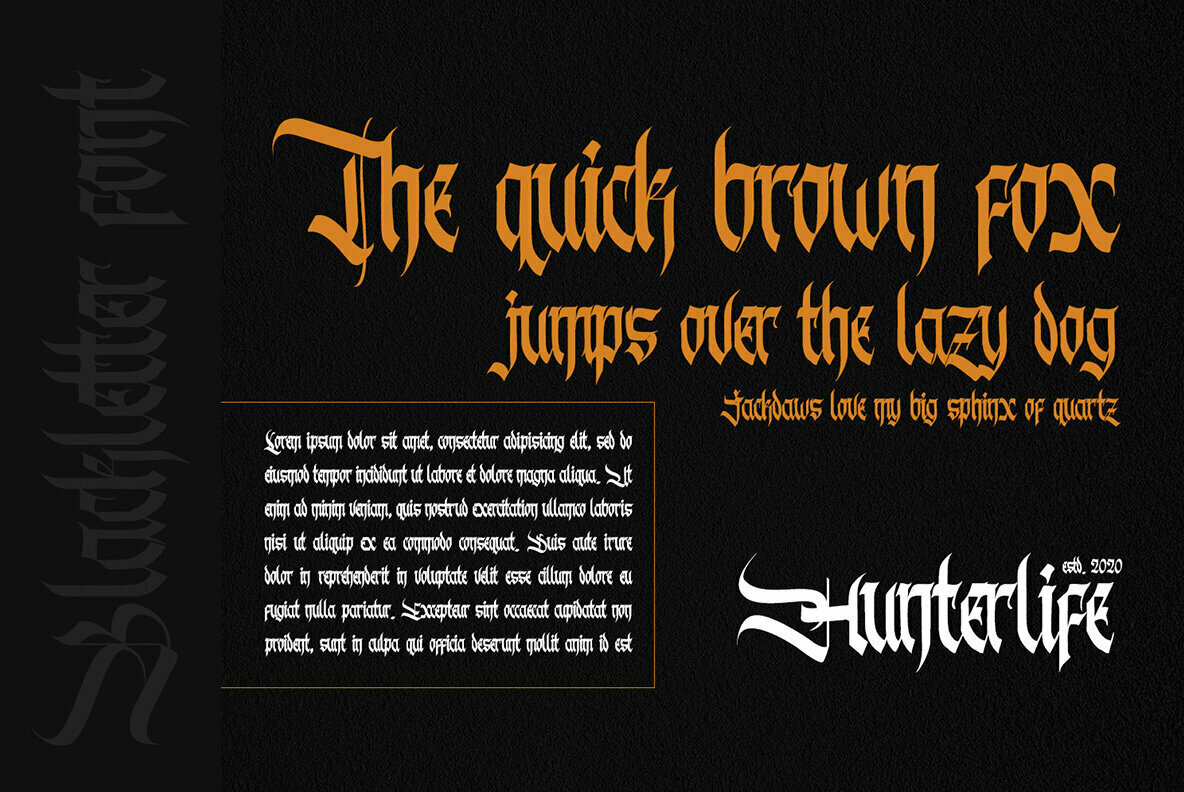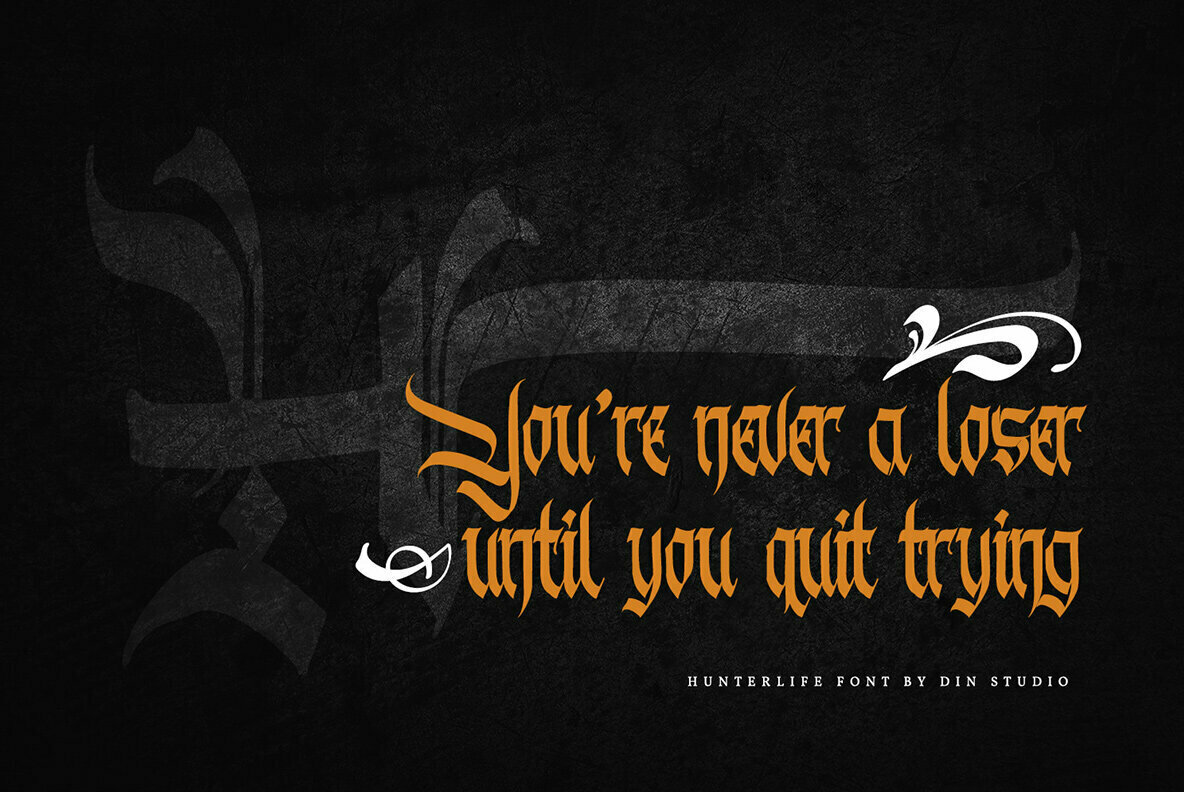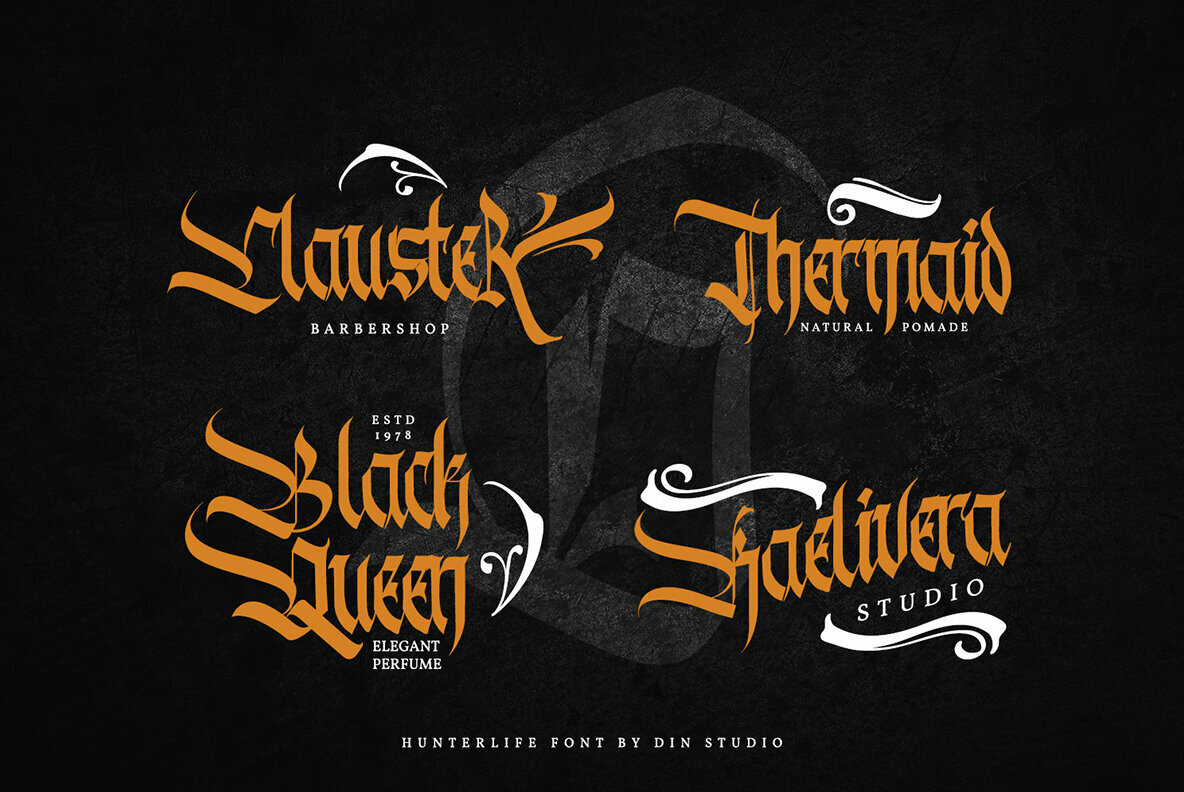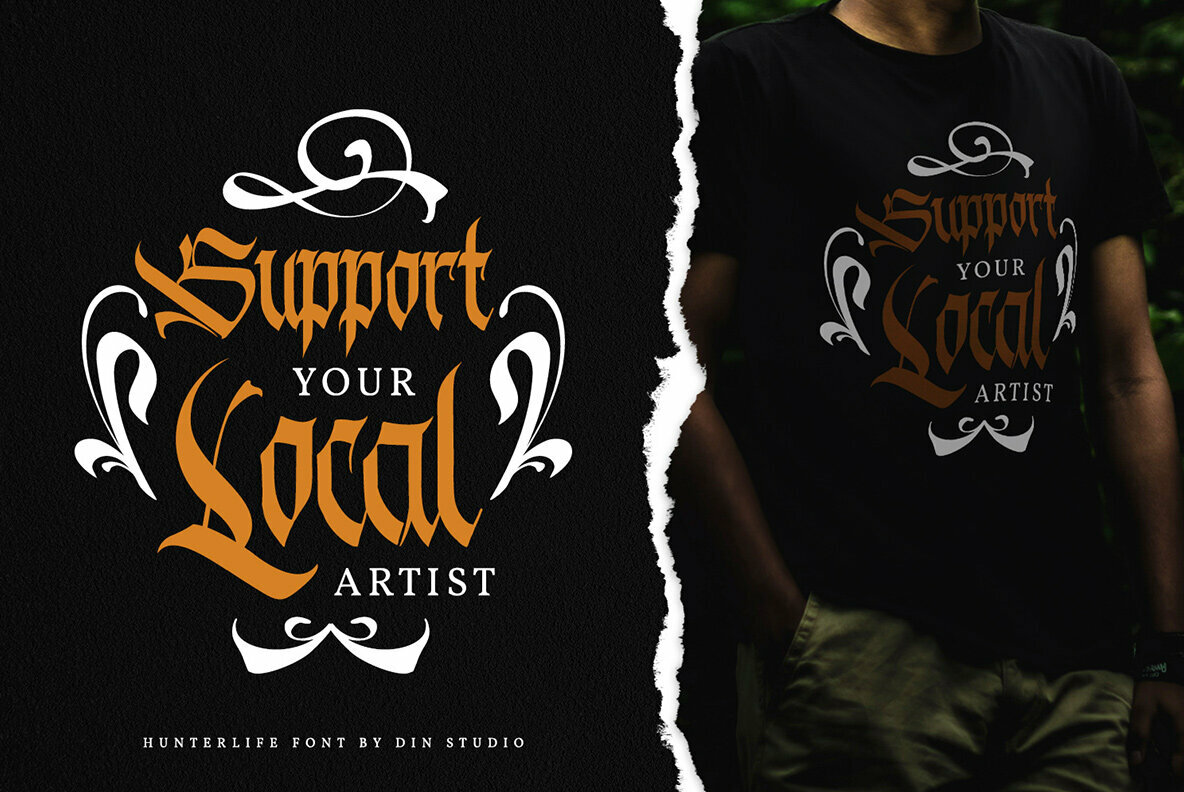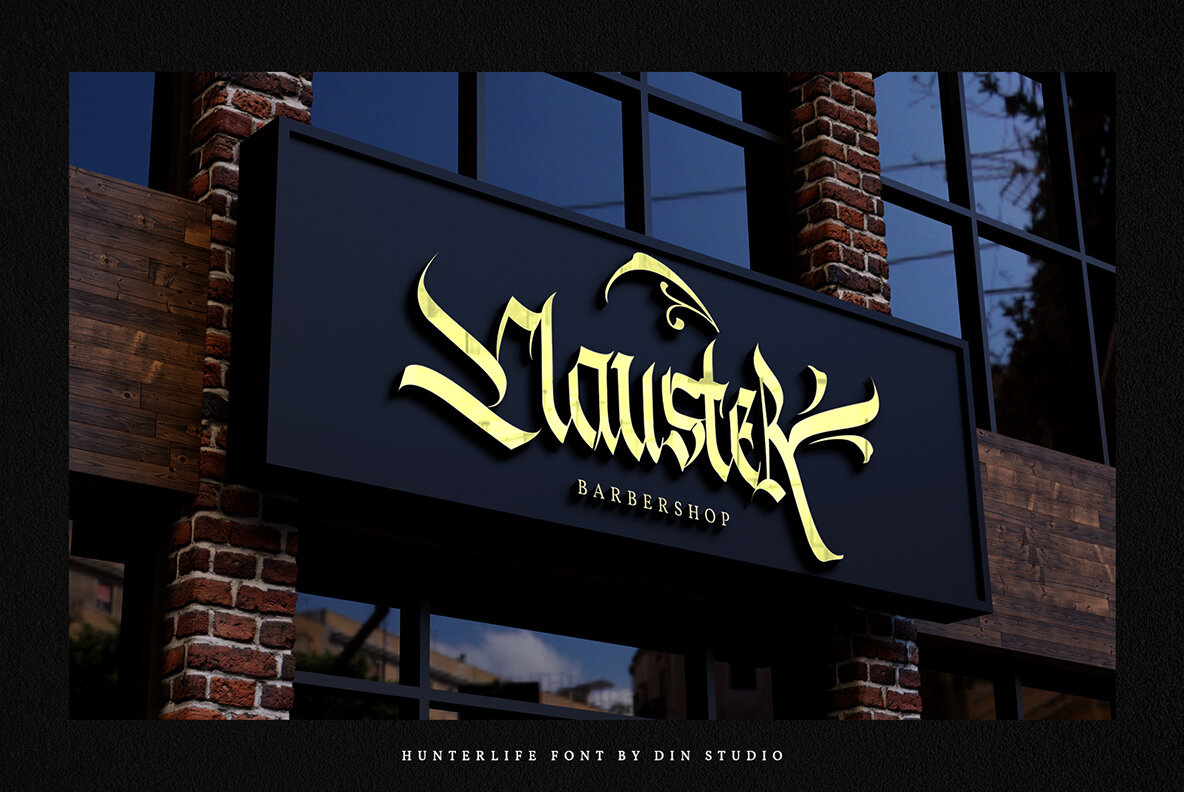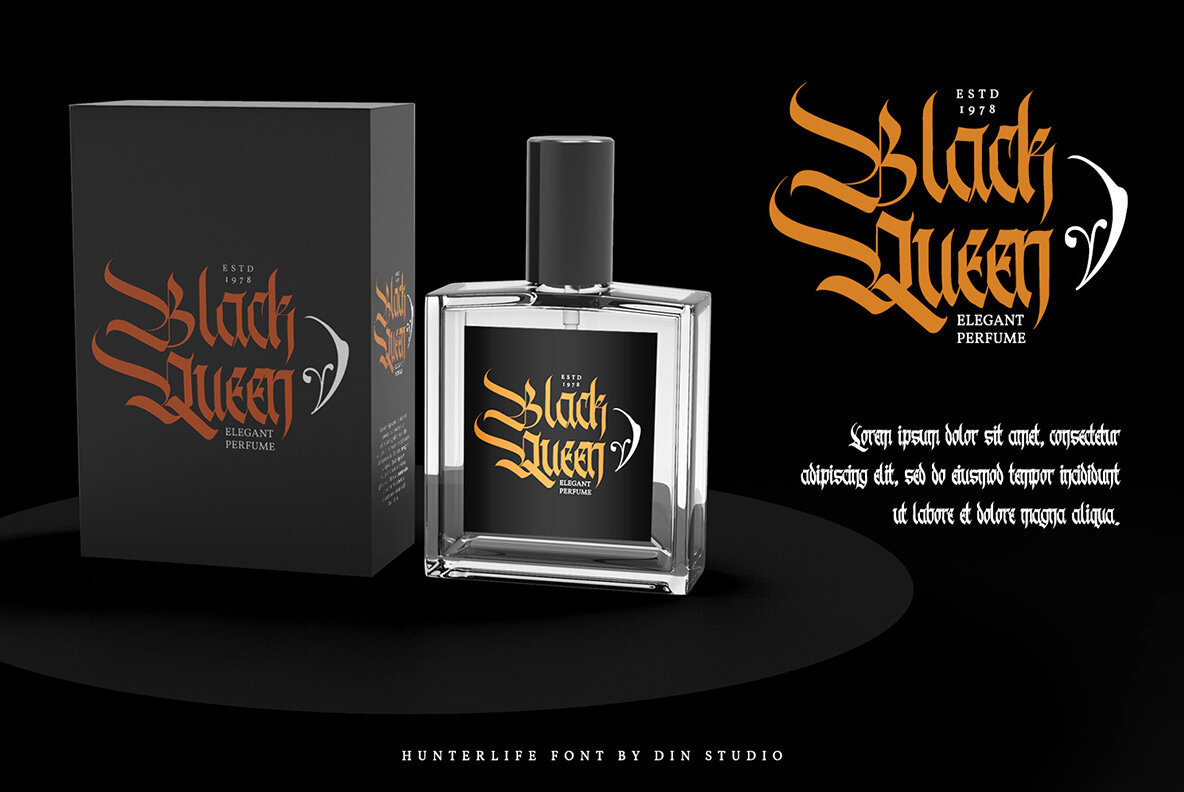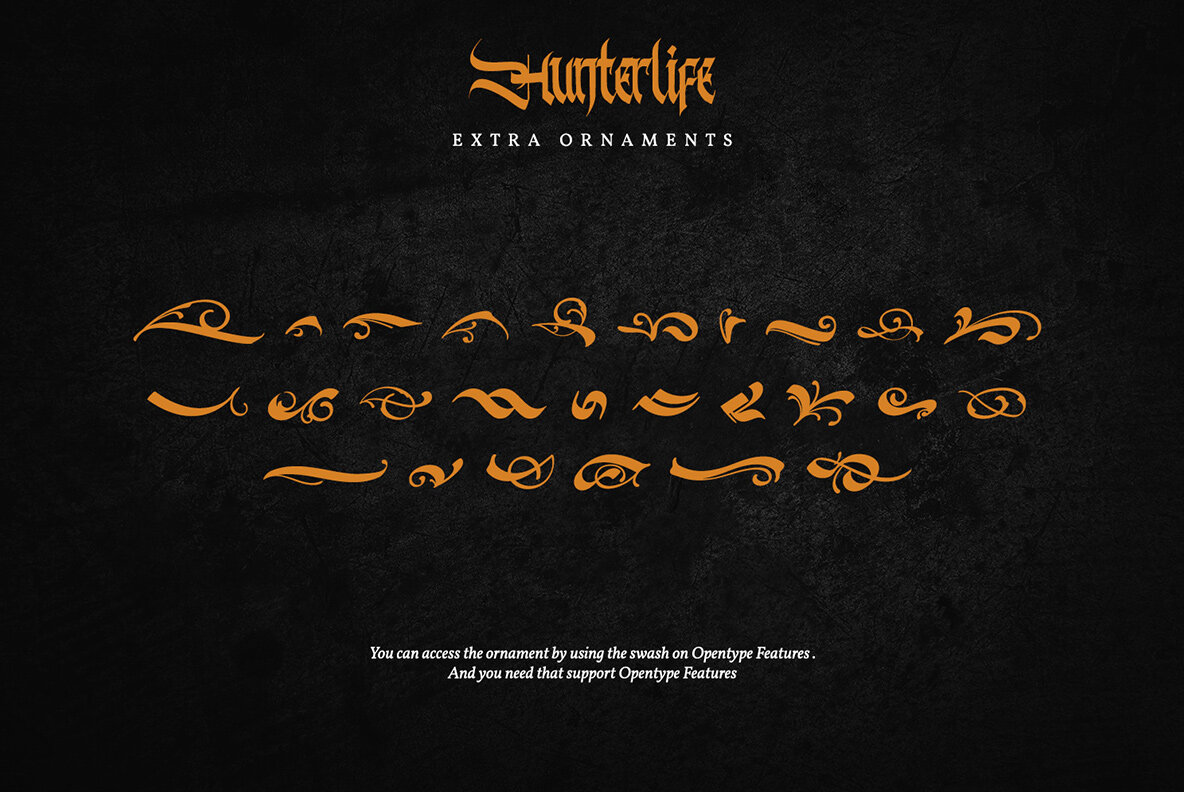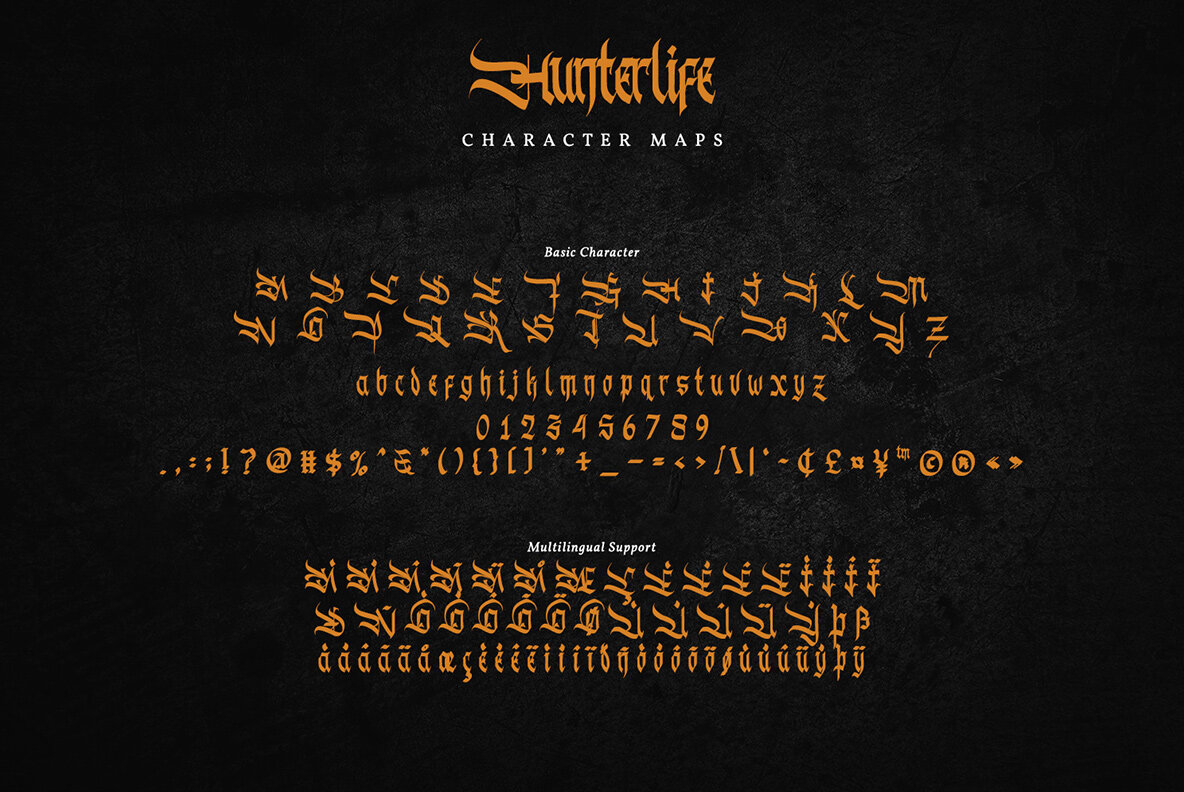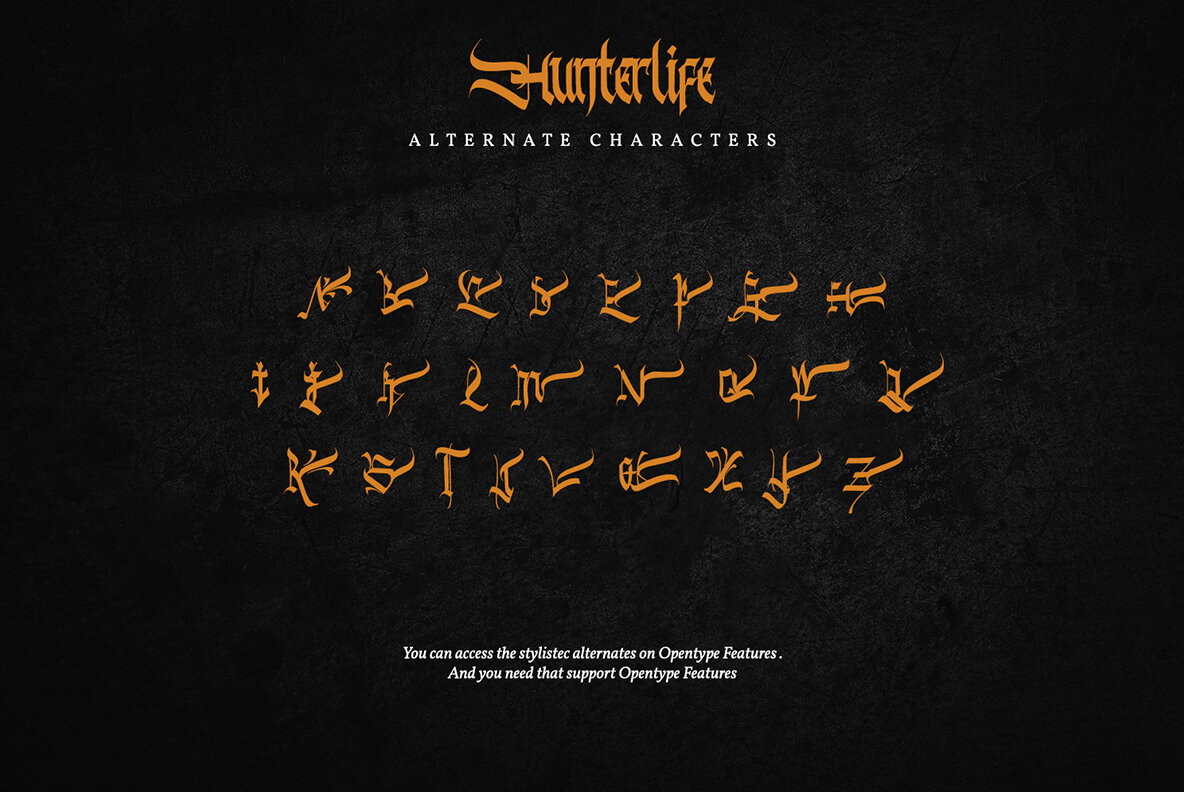
Hunterlife Font
Hunterlife
Hunterlife captures the bold essence of classic blackletter fonts while infusing a contemporary touch. Perfectly tailored for innovative branding projects, this font excels in creating striking logos, stylish t-shirt designs, and more. Its adaptability ensures it stands out across various creative contexts.Hunterlife: Authentic Blackletter for Modern Design